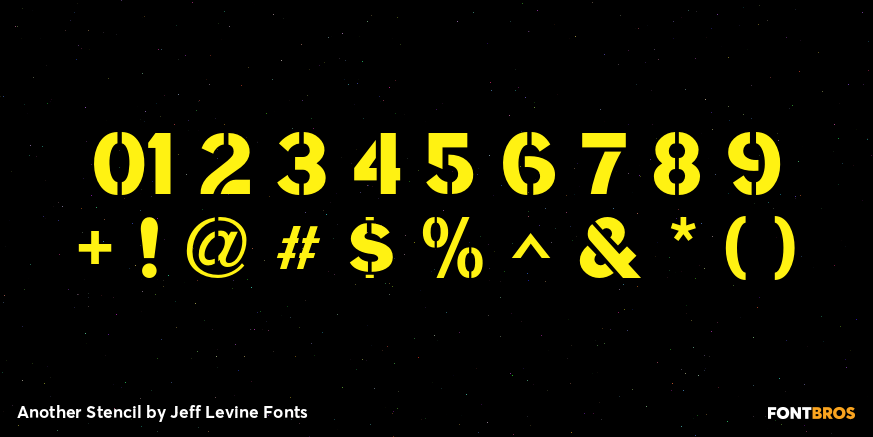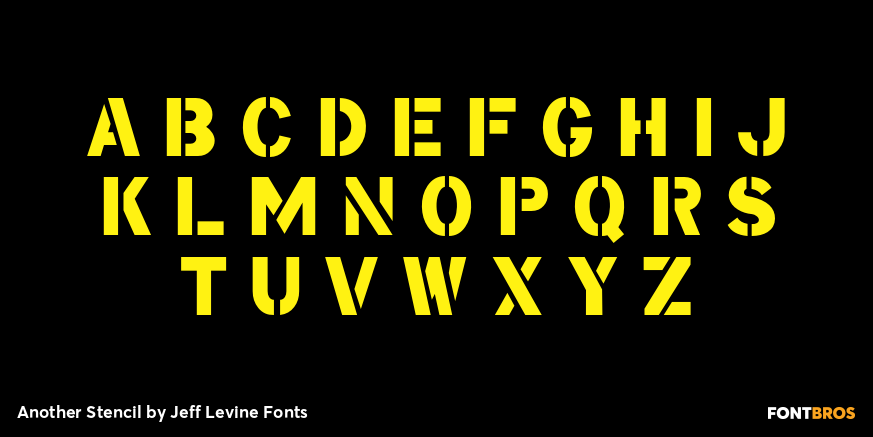
Another Stencil
With a large variety of stencil fonts contained within the Jeff Levine Fonts library, Another Stencil JNL is simply another stencil design added to this growing collection.
Modeled from a lettering guide manufactured in the 1970s, the style is influenced by Franklin Gothic, but has enough differences in the shapes of the stencil characters to be considered a cousin to that classic design.
Another Stencil JNL Regular by Jeff Levine Fonts